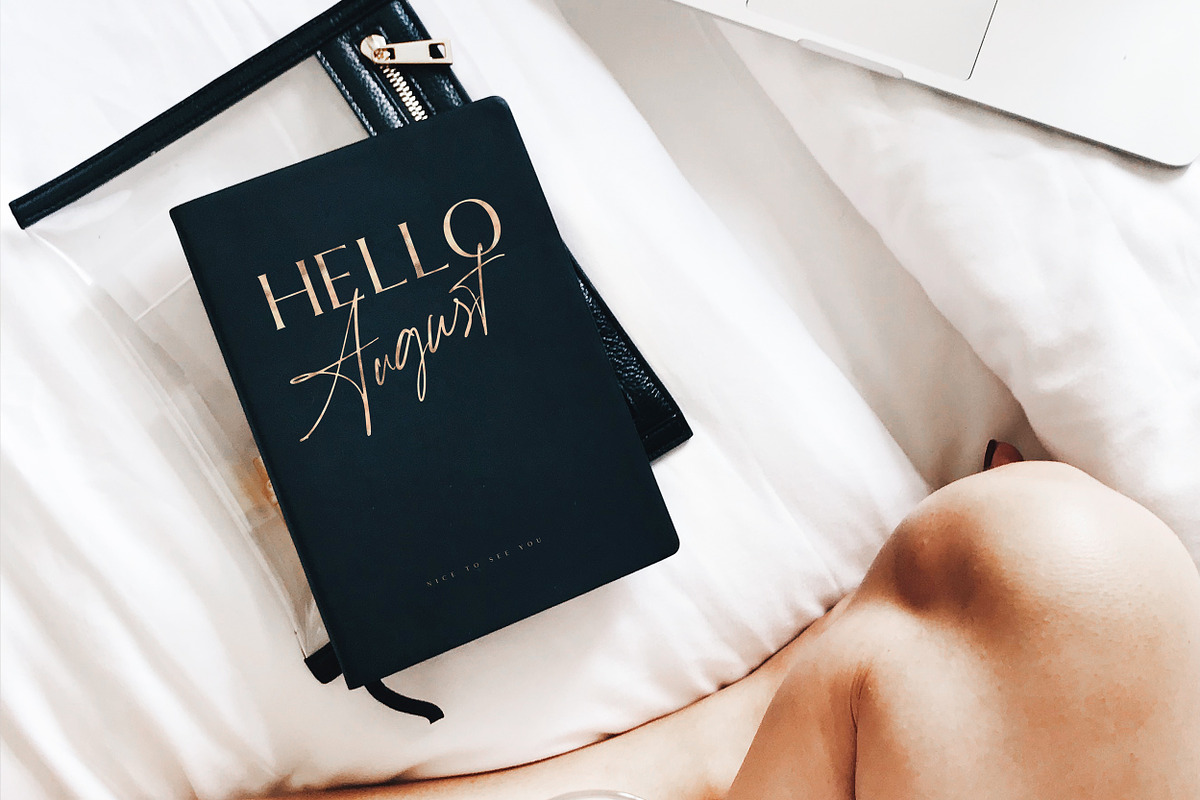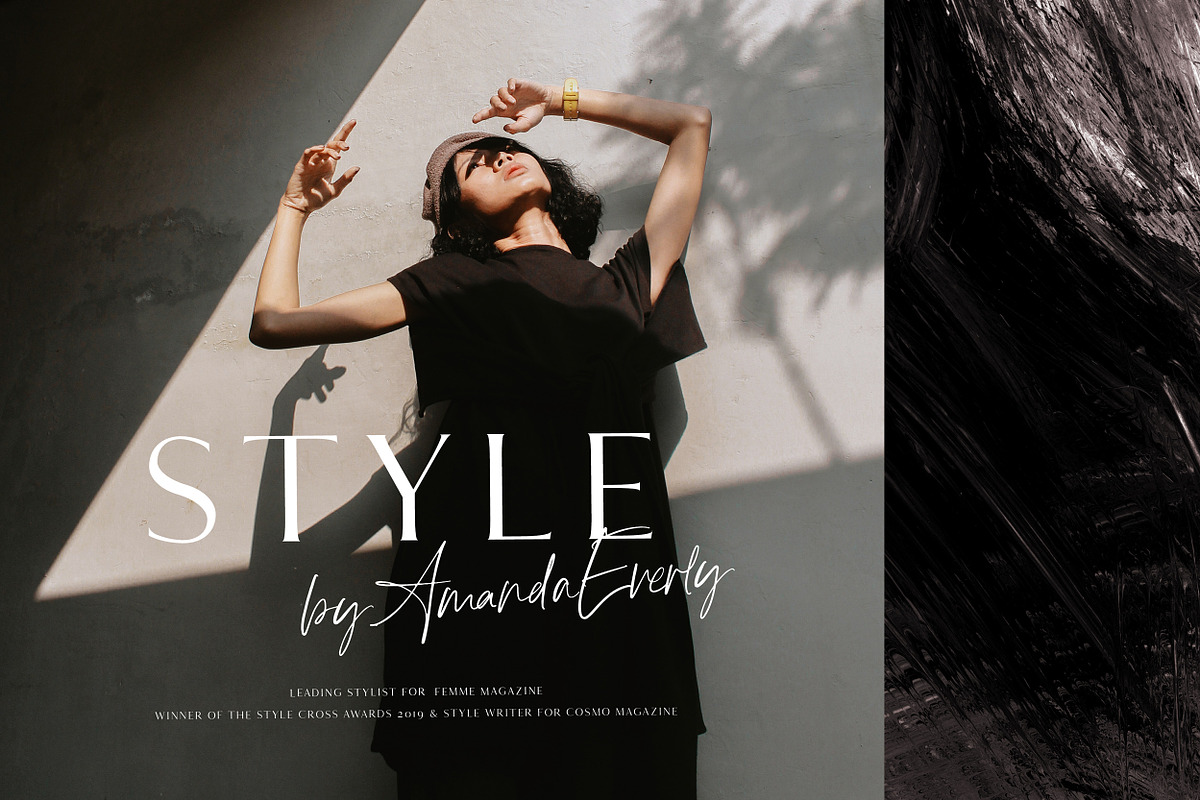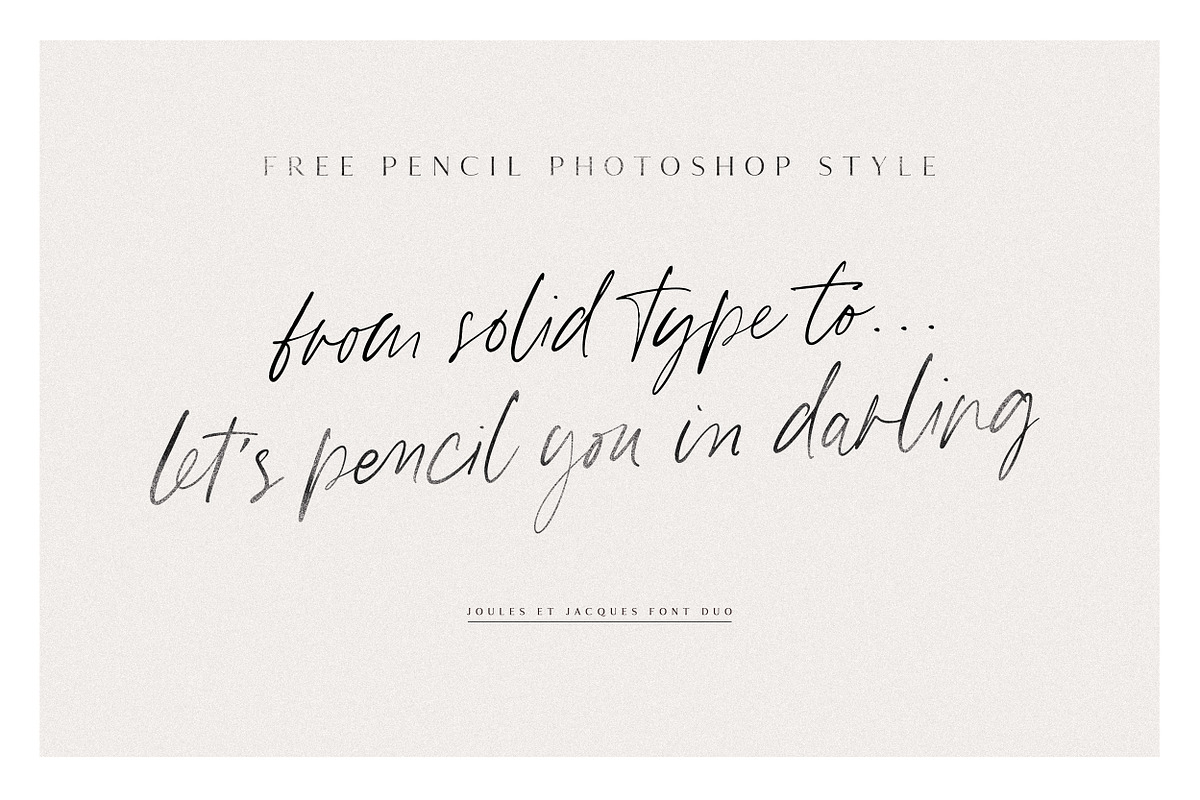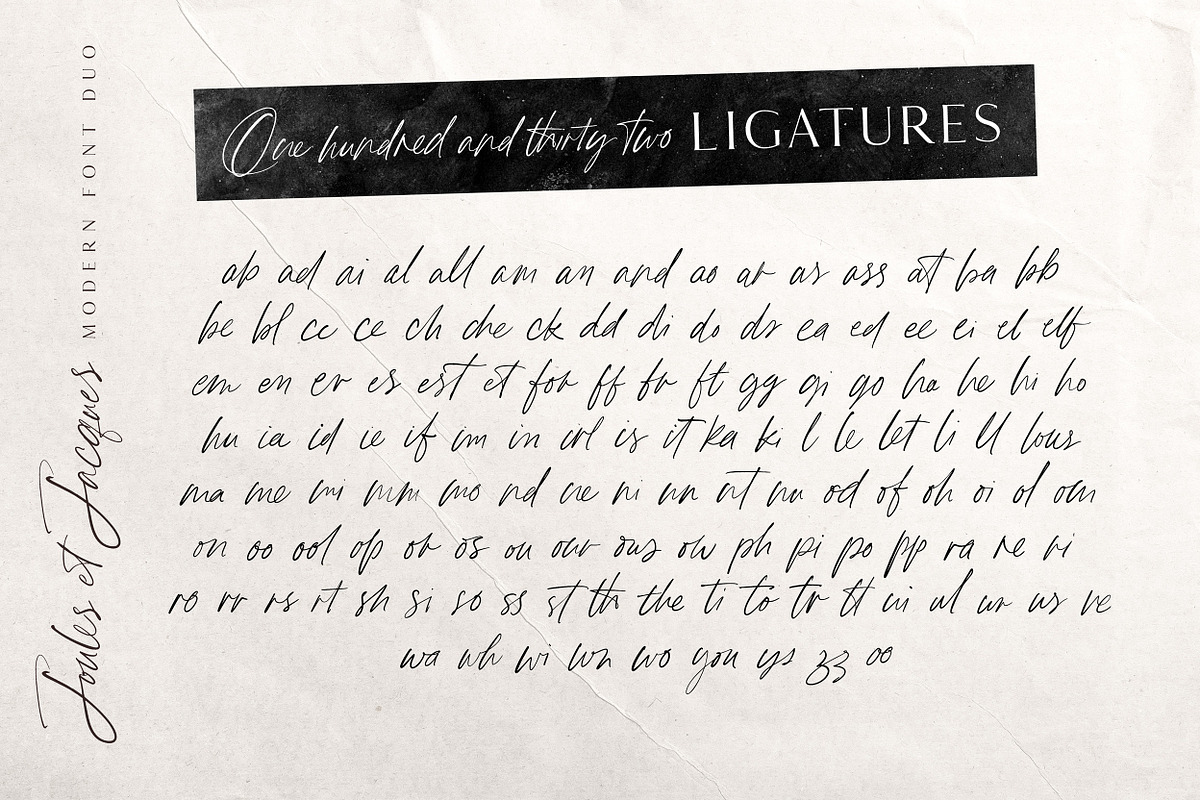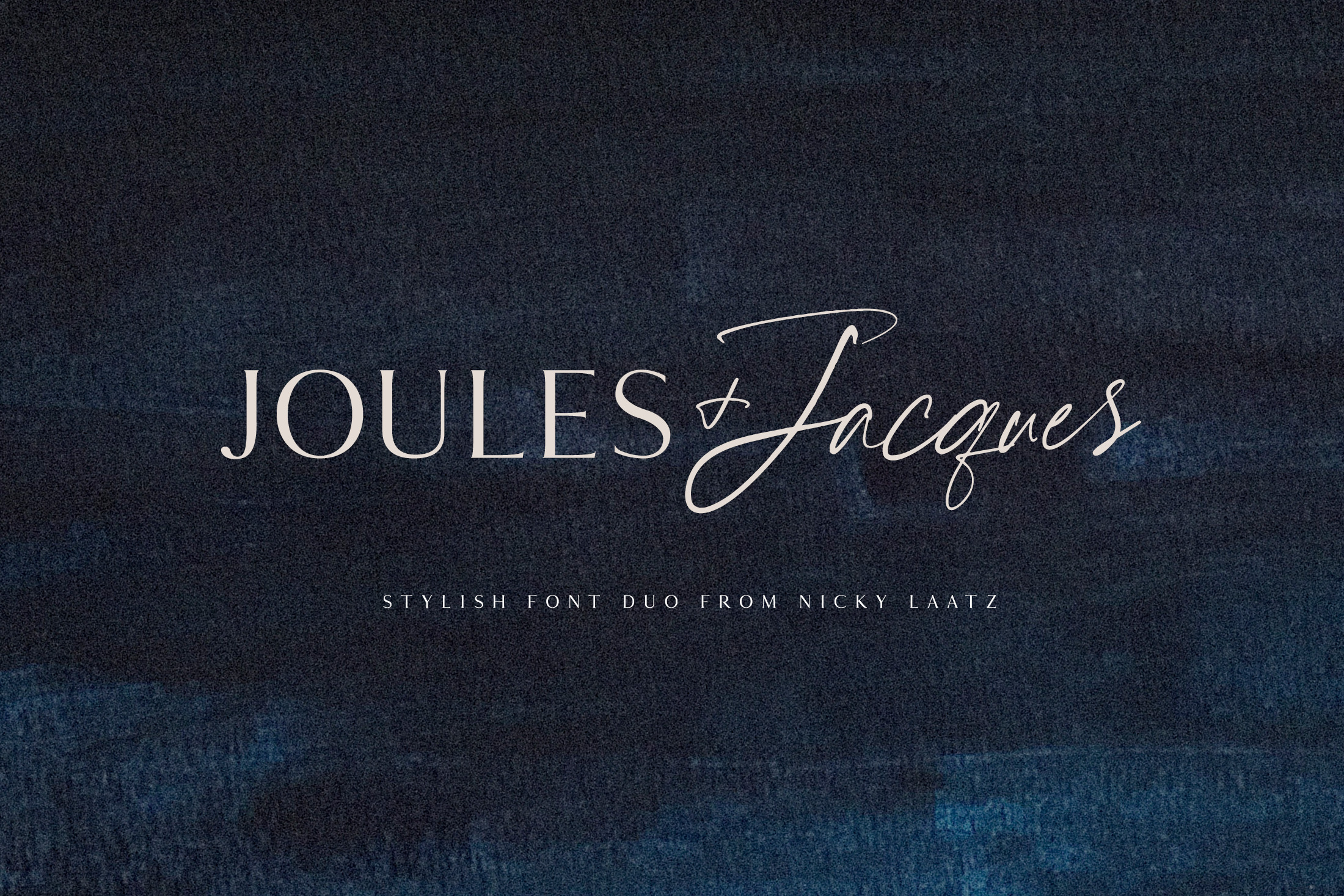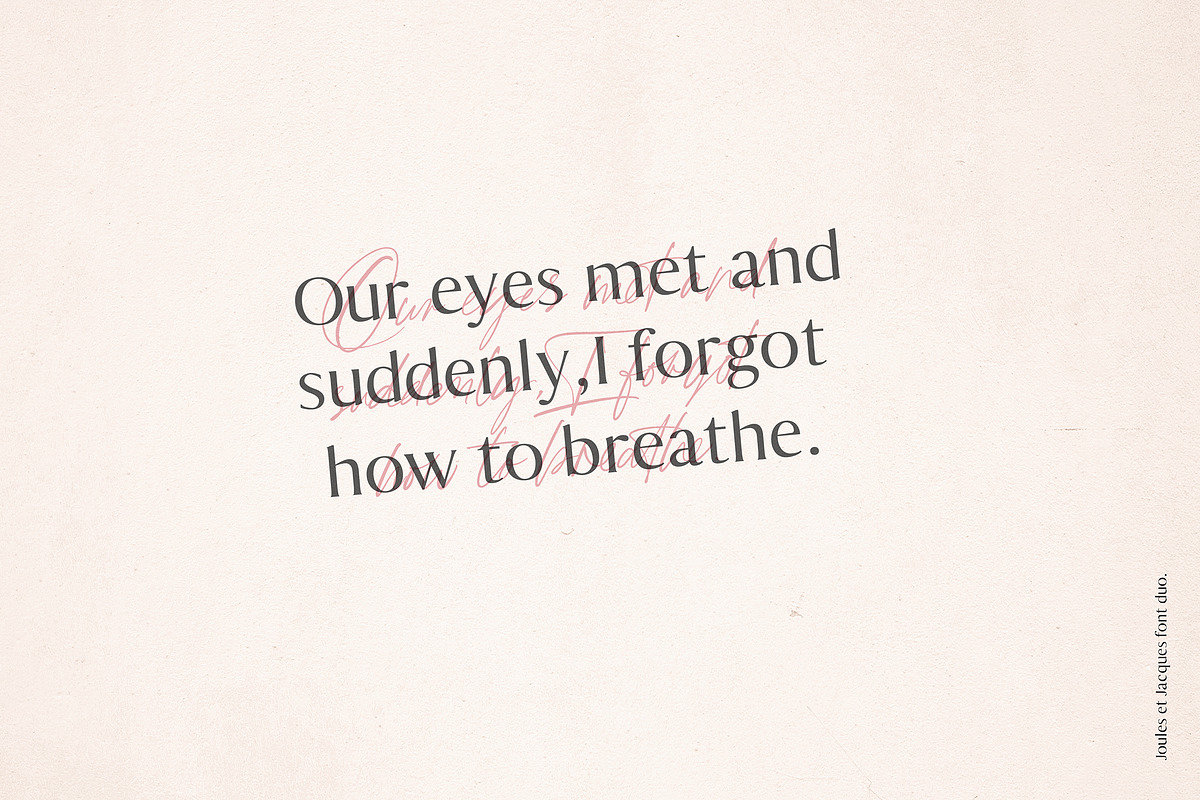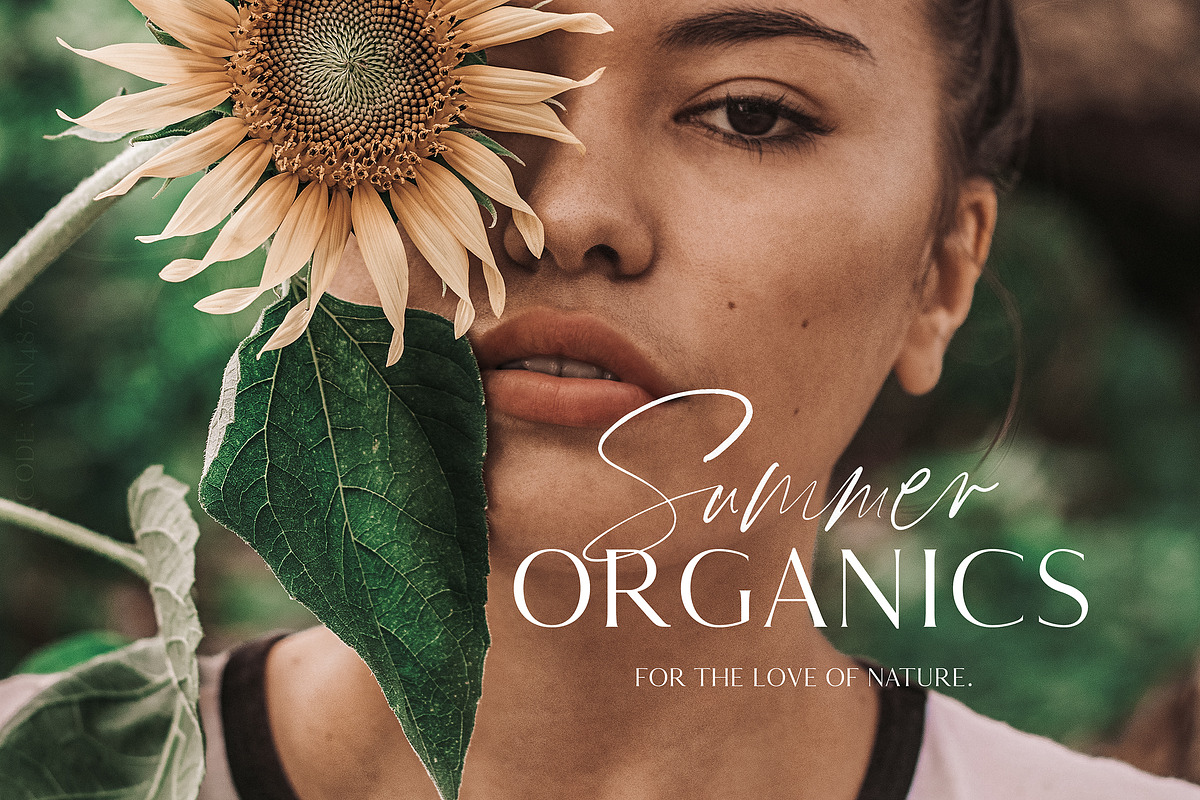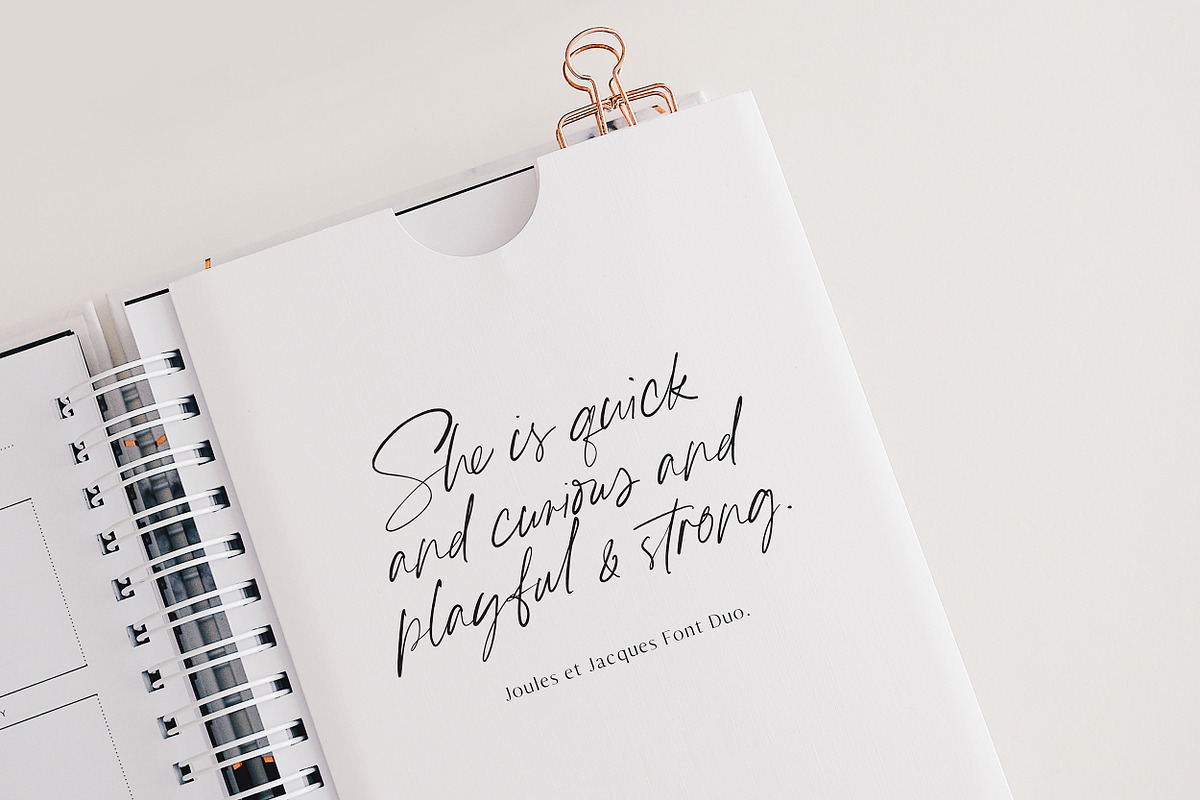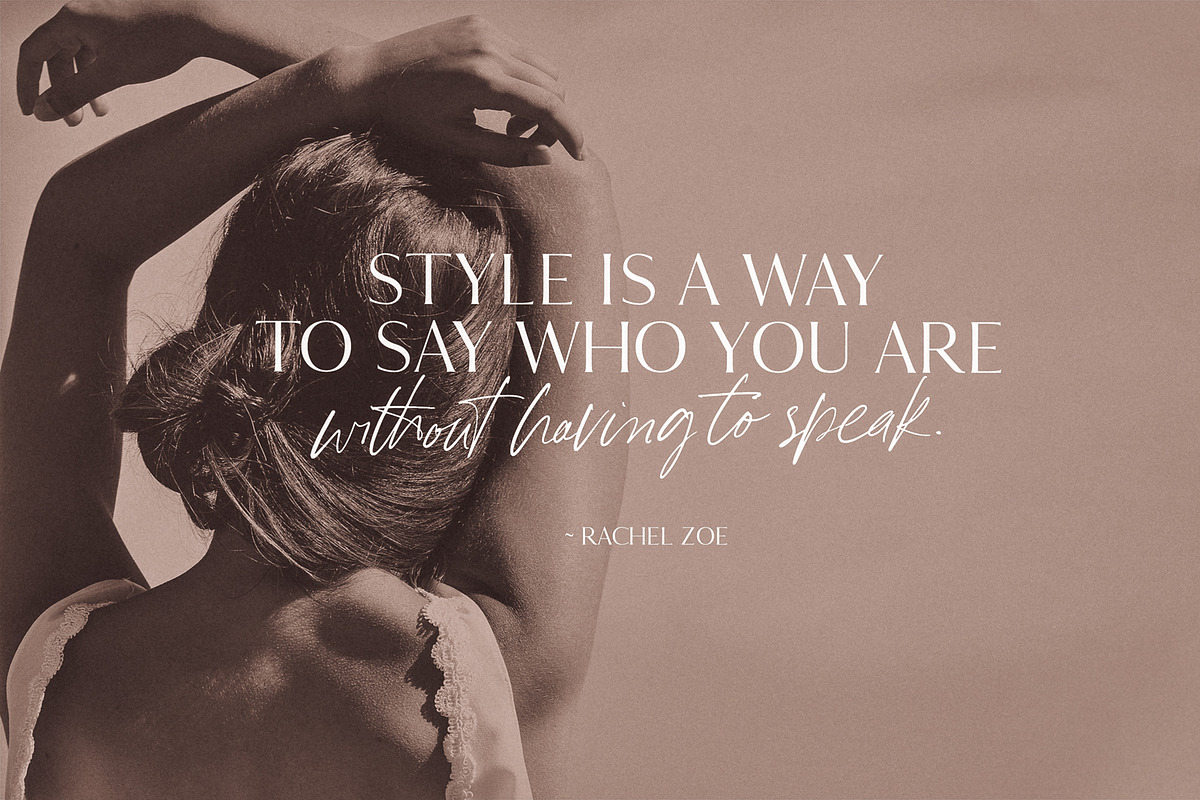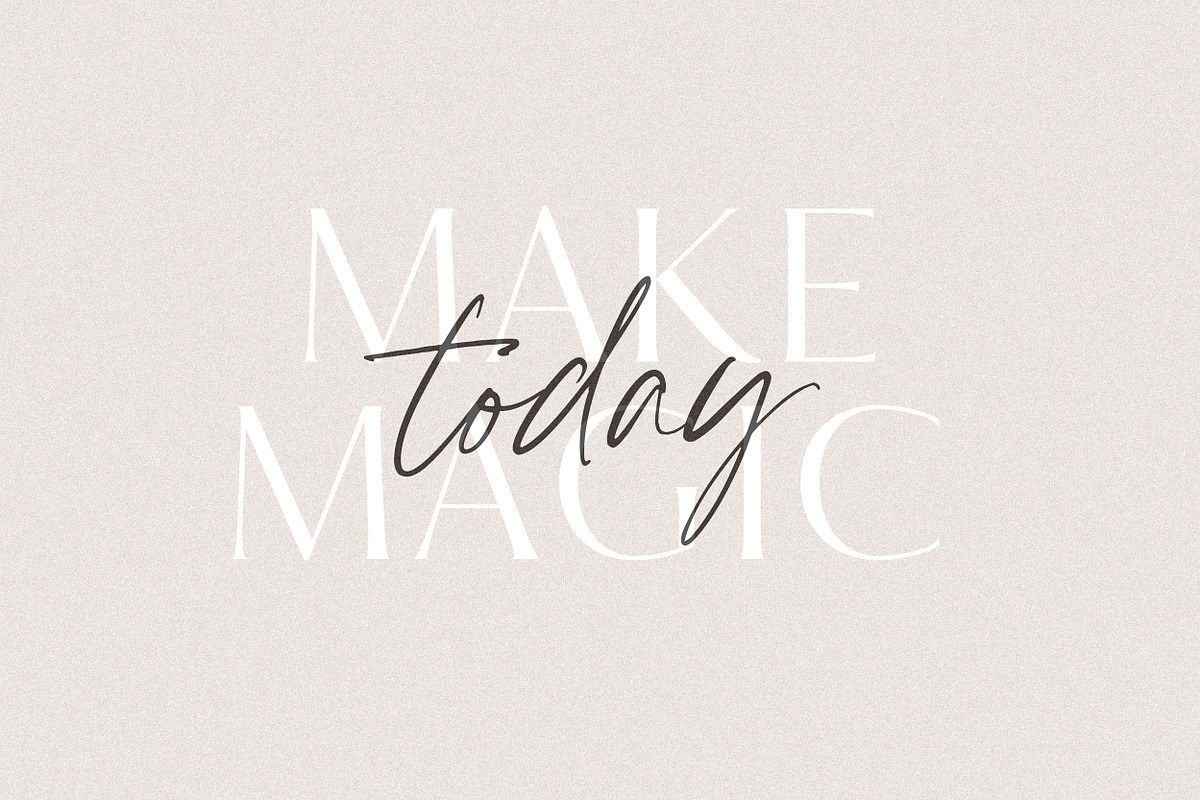
Joules et Jacques Font Duo
Say hello to Joules et Jacques!
A stylish modern font duo consisting of a natural handwritten script and a refined, elegant serif font.
Perfect for making bold stylish statments - or adding a touch of class to your designs.
The script has a multitude of natural looking ligatures in its OpenType features - making the font look as close to natural handwriting as possible.
The Serif includes two weights - regular and bold - and built in OpenType kerning features for a professional touch.